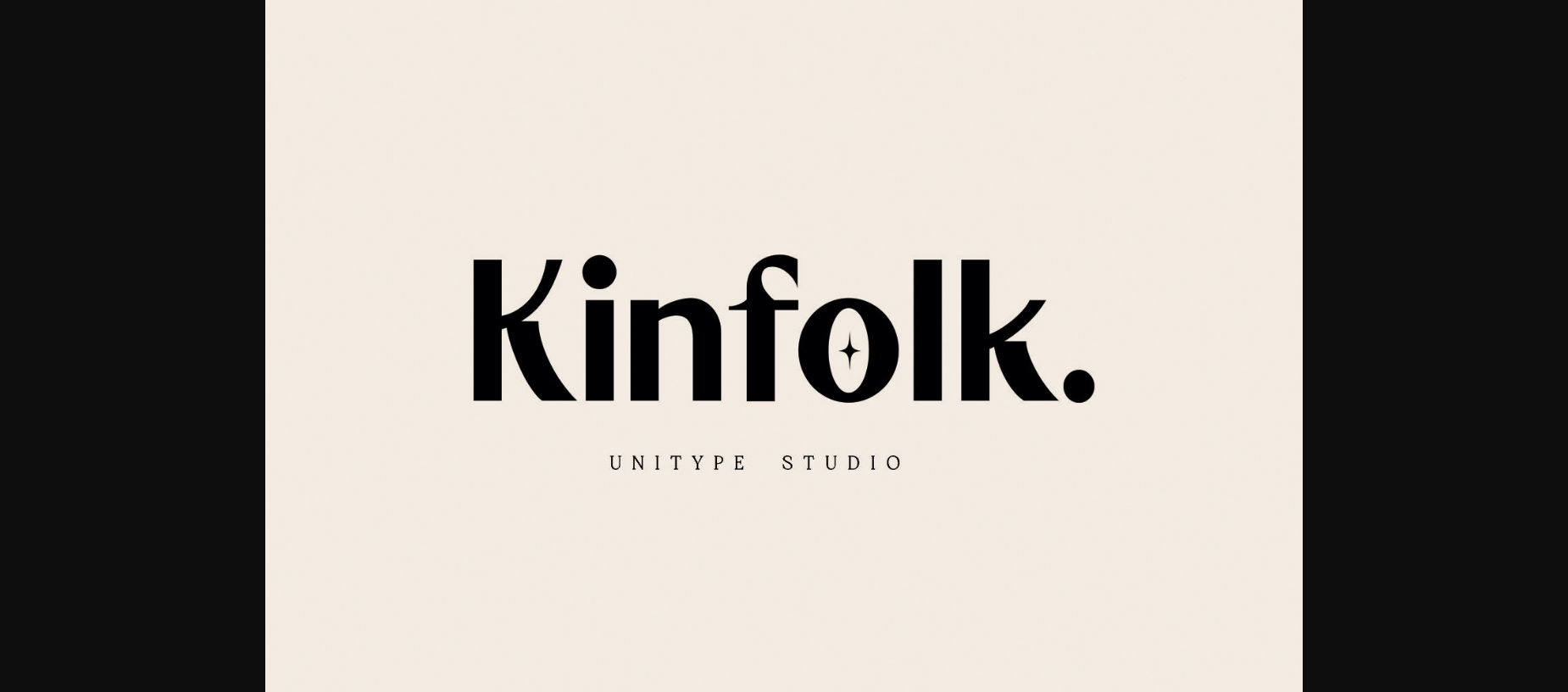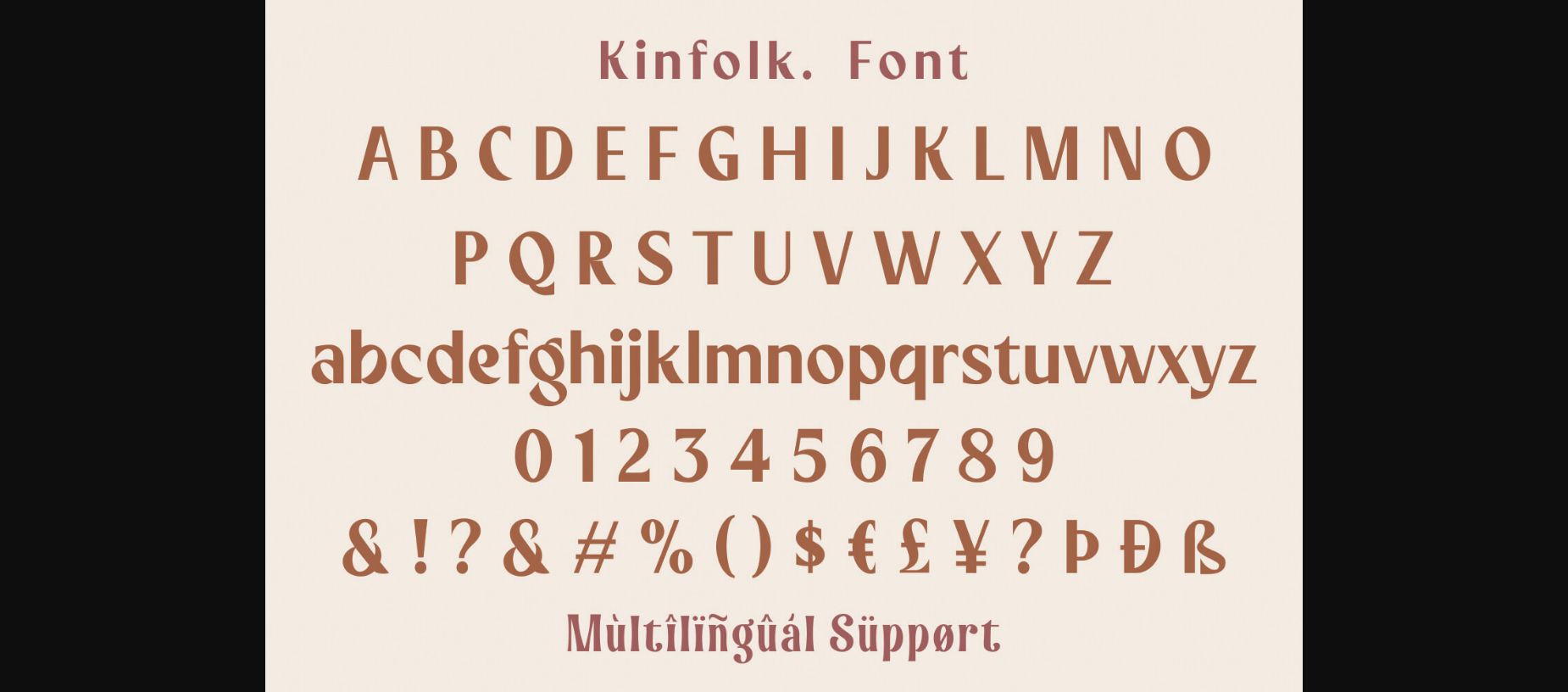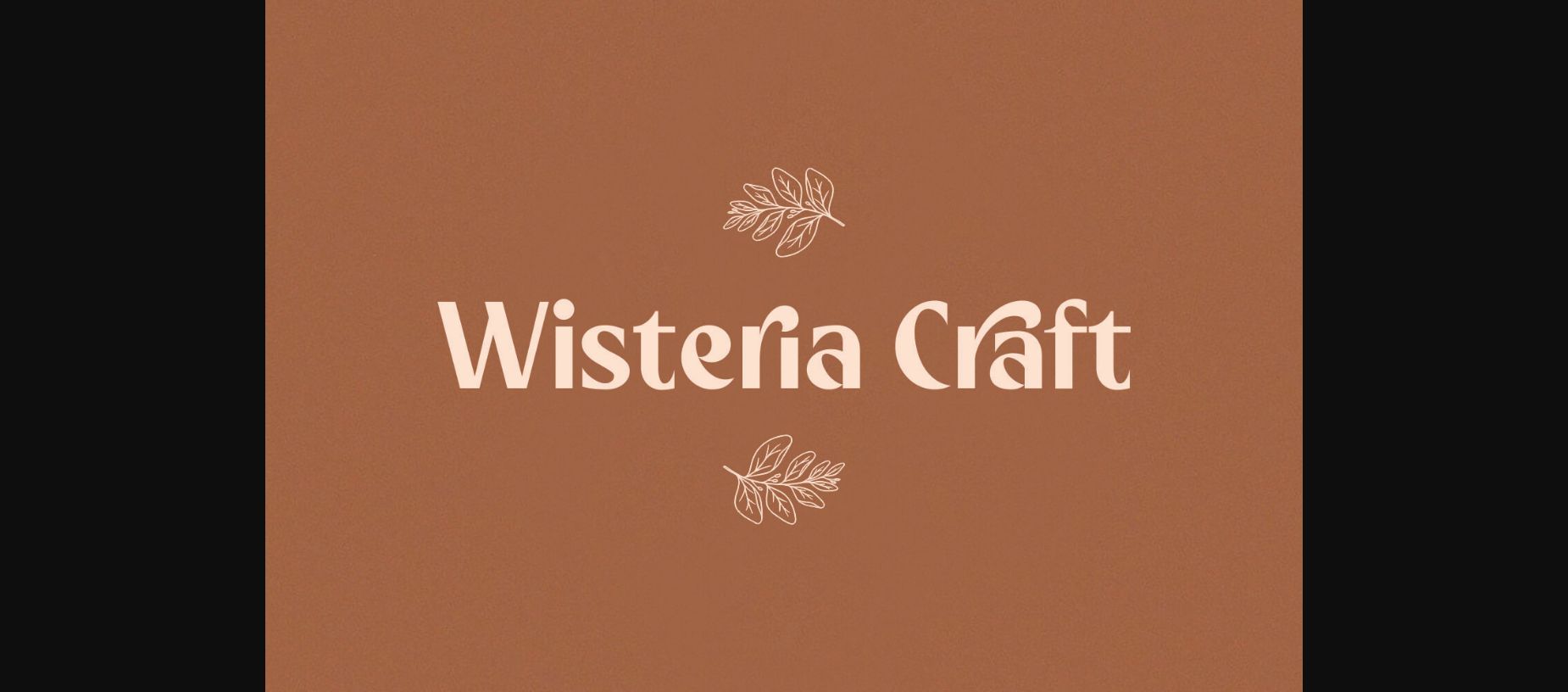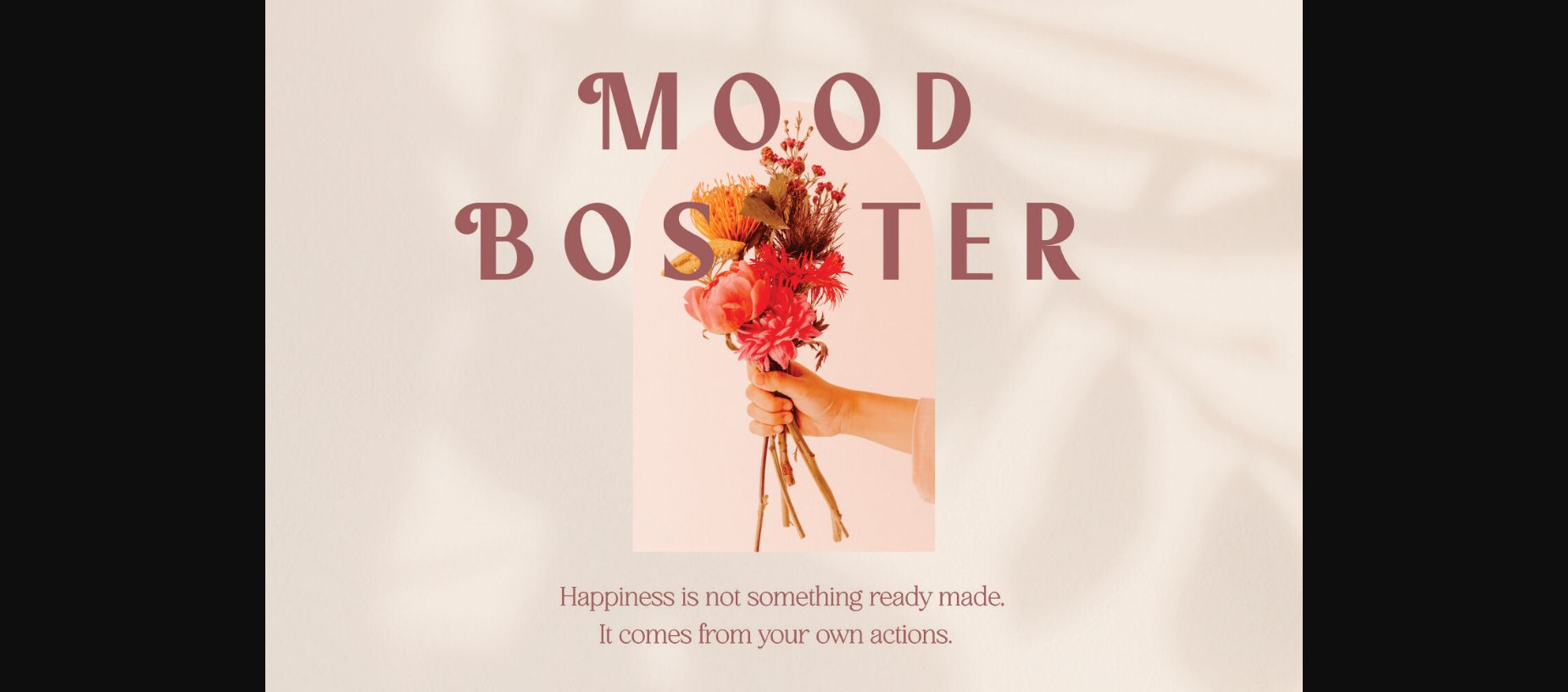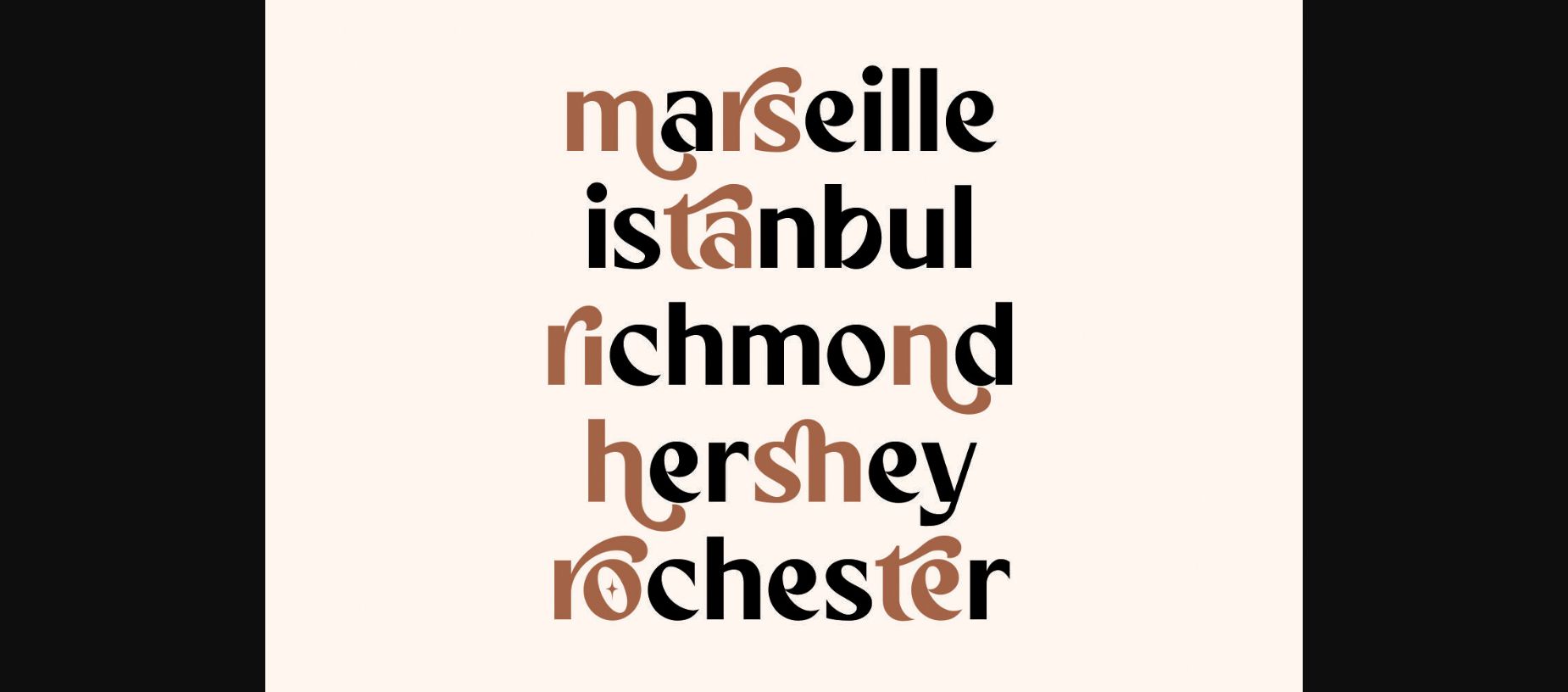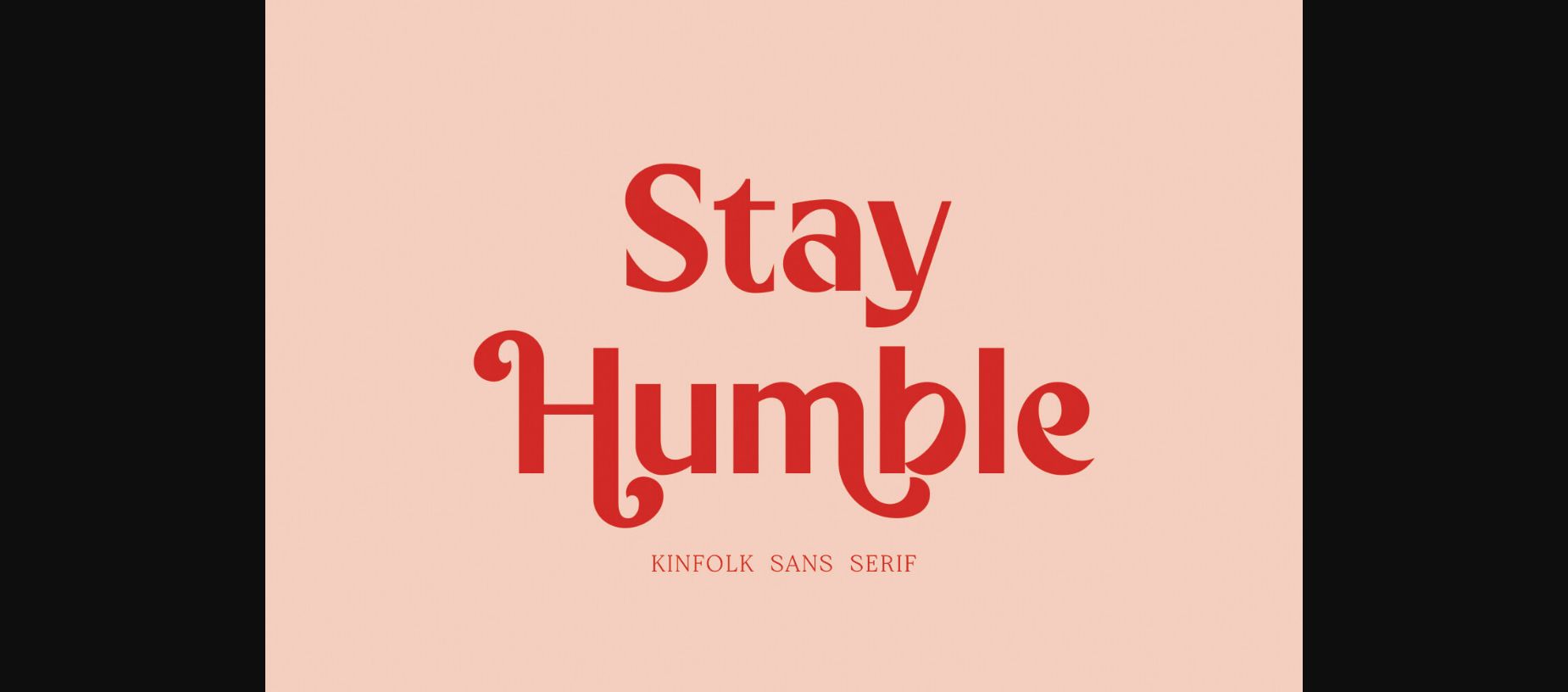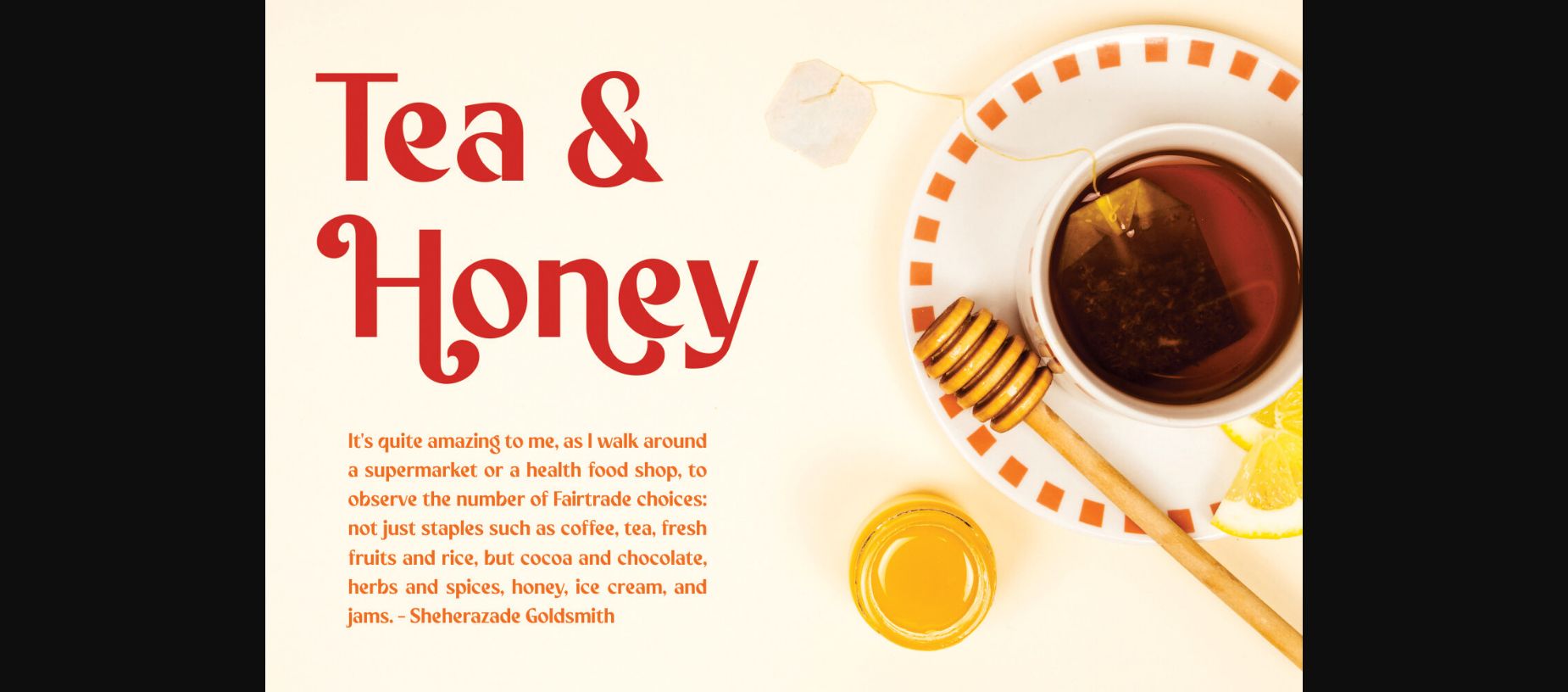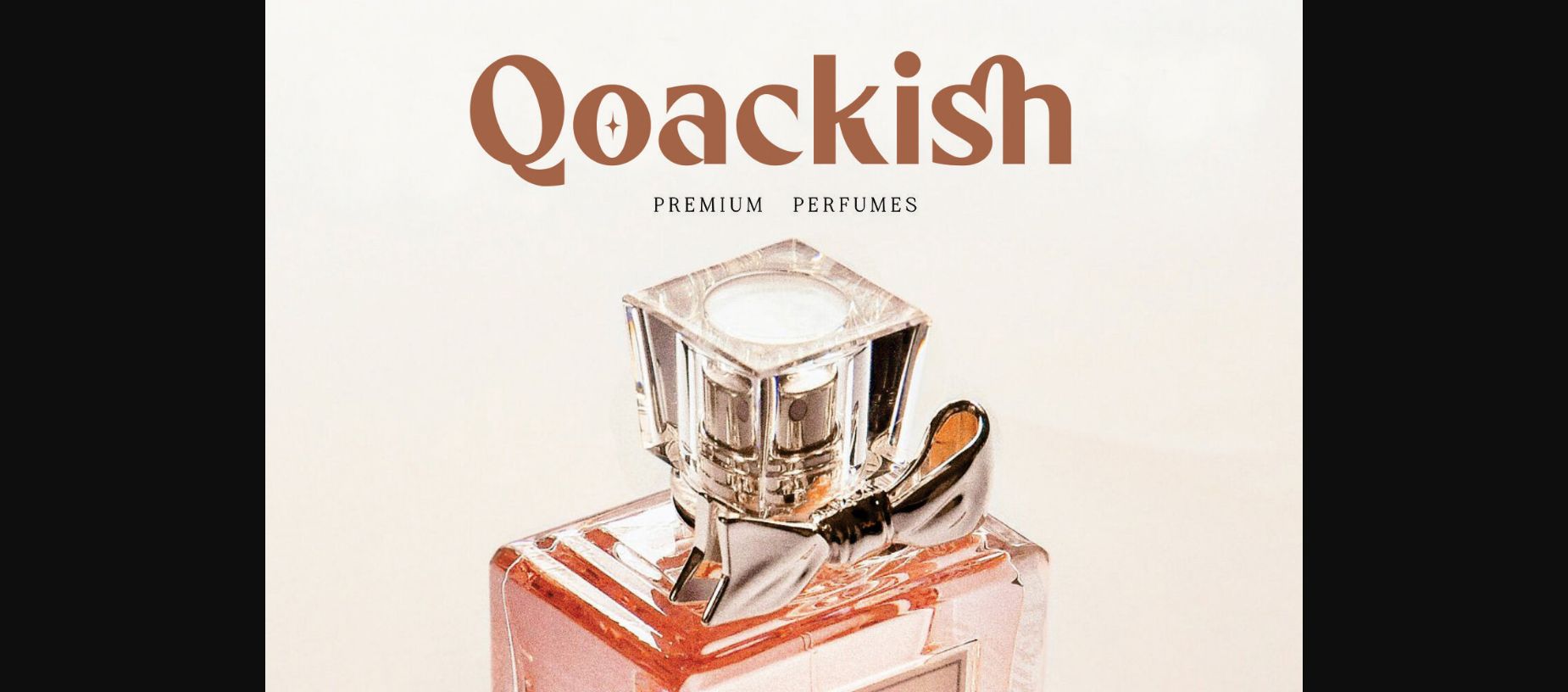
Kinfolk Font
About Kinfolk Font
Introducing Kinfolk sans-serif font. The perfect choice for designers and creatives looking to add a modern, minimalistic touch to their projects. Crafted with precision and attention to detail, our sans-serif font offers a clean and stylish look that will elevate your designs to the next level.
With its versatile design and legibility, it’s ideal for a wide range of projects, including logos, branding, web design, and print materials. Whether you’re looking for a bold headline font or a subtle body text font, this sans-serif font has got you covered.